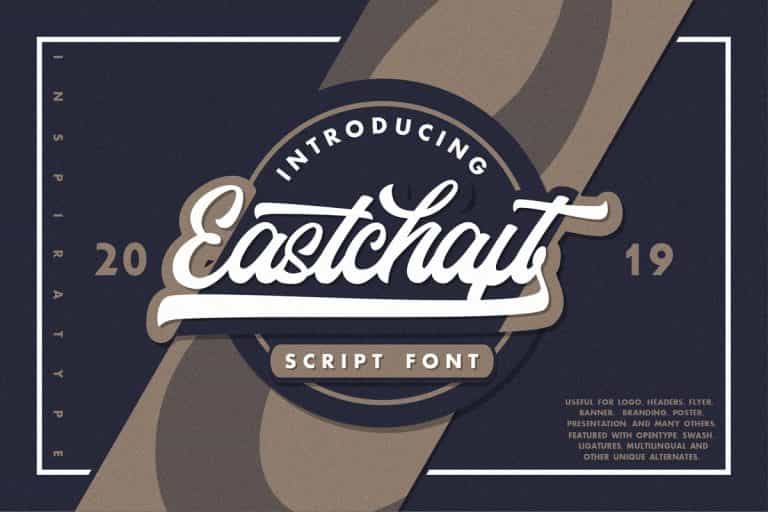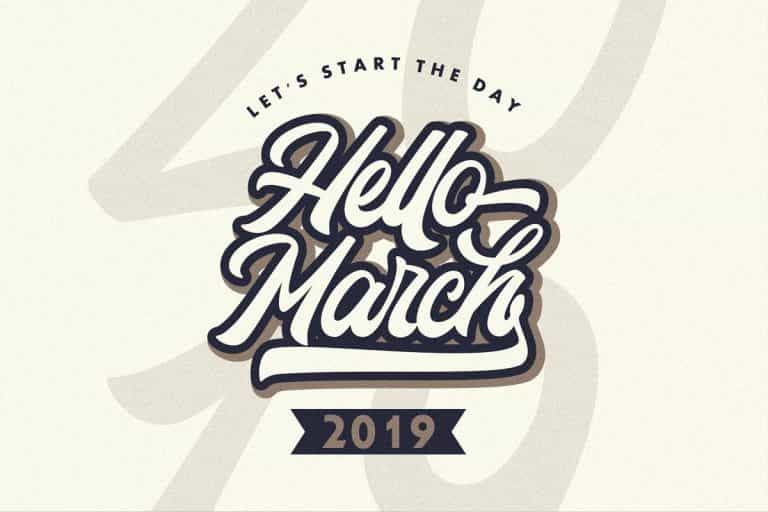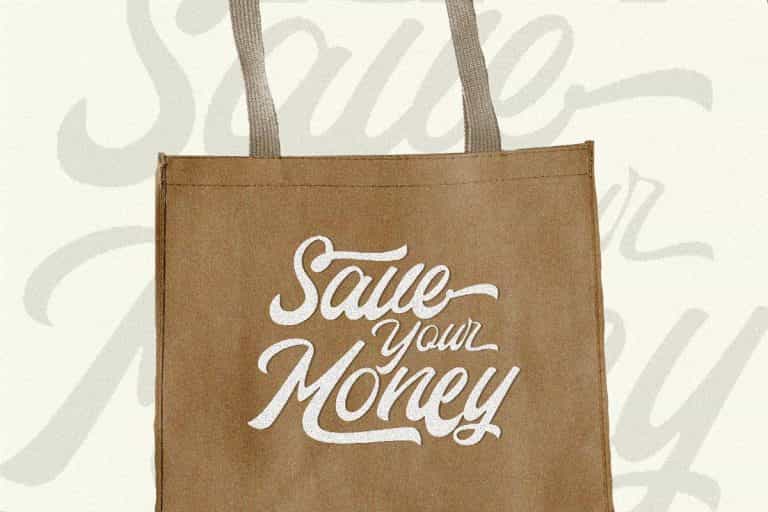
Introducing Eastchaft Font! Eastchaft Script Font is a hand-made font display which is inspired by the traditional posters. comprises of the all caps, small letters, numbers and punctuations as well as different variations of each character which are OpenType alternates, common ligatures and swash to allow you to customize your designs. Ideal to be used for Logotype, Letterhead, Poster, Apparel Design and Label among others.